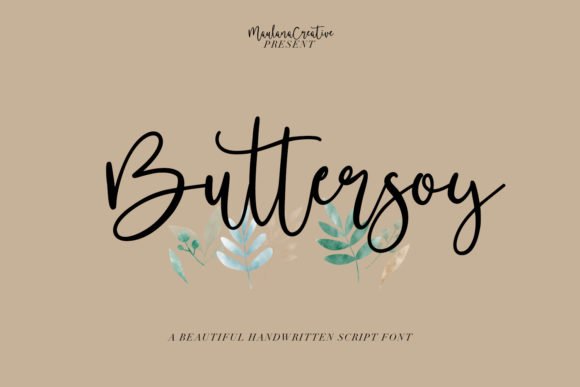
The Perfect Touch for Your Next Design Masterpiece
Have you ever been working on a design project, pouring your heart and soul into it, and then suddenly, you need that one element to make it truly stand out? That’s where the magic happens, and that’s exactly what the Buttersoy Font can do for you.
This beautiful light handwritten font is more than just a pretty face – it’s a game-changer. With its unique feel and stunning impact, Buttersoy Font adds a luxury spark to any design project you can think of. Whether you’re working on a high-end branding campaign, a wedding invitation, or a blog post, Buttersoy Font is the perfect addition to elevate your design to the next level.
Buttersoy Font Key Features
- Unique Characteristics: The Buttersoy font features a distinctive, playful, and cursive design with a mix of handwritten and printed elements.
Designer Review: Buttersoy Font
Overall, I think the Buttersoy font has some lovely qualities that make it a great addition to any design project. ✨ For one, its unique blend of vintage and modern elements gives it a distinctive look that’s sure to stand out. ✨ The font is also highly legible, even at smaller sizes, which is a must for any font.
However, I do think that the font has some limitations that prevent it from being perfect. ⚠️ For one, the font can be a bit too ornate for some projects. While its intricate details are part of its charm, they can also make it feel overwhelming if used in excess. ⚠️ Additionally, the font may not be suitable for projects that require a more neutral tone, as its playful nature can come across as too whimsical.
Here are a few specific things that I like and dislike about the font:
- Unique blend of vintage and modern elements
- Highly legible, even at smaller sizes
- Perfect for projects that need a playful, whimsical touch
- Can be overwhelming if used in excess
- May not be suitable for projects that require a neutral tone
Overall, I think the Buttersoy font is a great choice for designers who want to add a touch of personality to their projects. Just be sure to use it judiciously and balance it with other elements to avoid overwhelming the design.
Tips for Getting the Most Out of the Buttersoy Font
Use the Buttersoy font for creative and playful designs, such as:
1. Children’s book illustrations.
2. Party invitations and decorations.
3. Social media graphics and ads.
4. Food and beverage branding.
The Buttersoy font is commonly used for:
1. Whimsical and playful branding.
2. Creative and artistic designs.
3. Children’s products and services.
4. Food and beverage packaging.
While the Buttersoy Font is designed to be a high-quality, pre-designed font, it is also possible to customize it to some extent. The font includes a range of OpenType features, such as ligatures, alternates, and swashes, which can be accessed and customized using software like Adobe Illustrator and Photoshop. However, any significant modifications to the font should be done by a professional font designer to ensure that the font remains legible and functional.